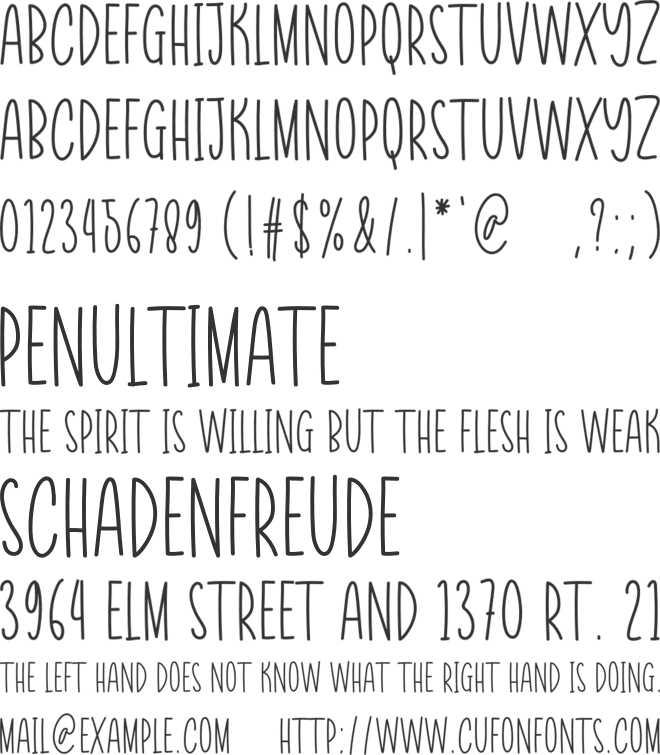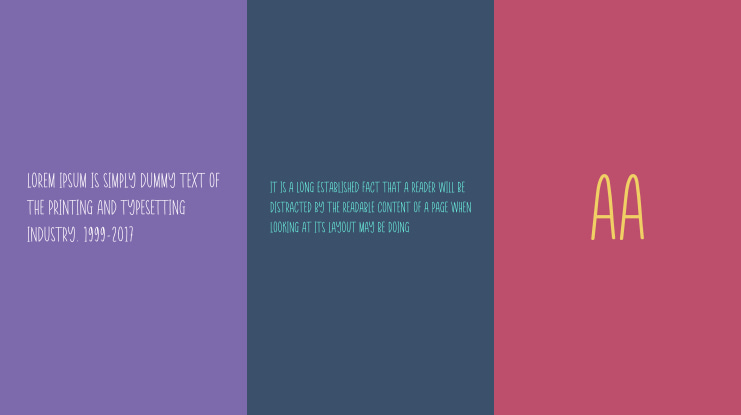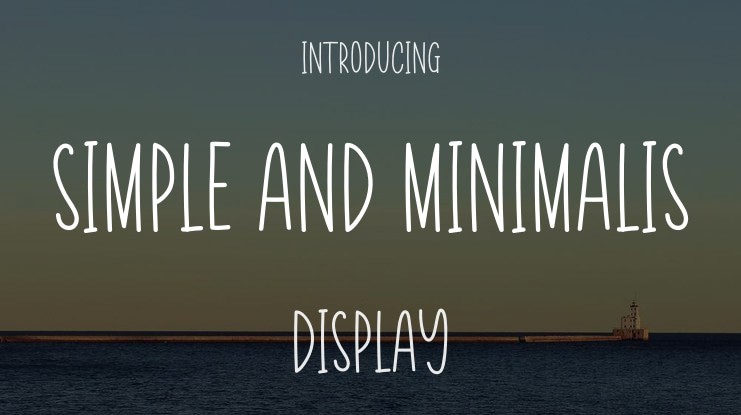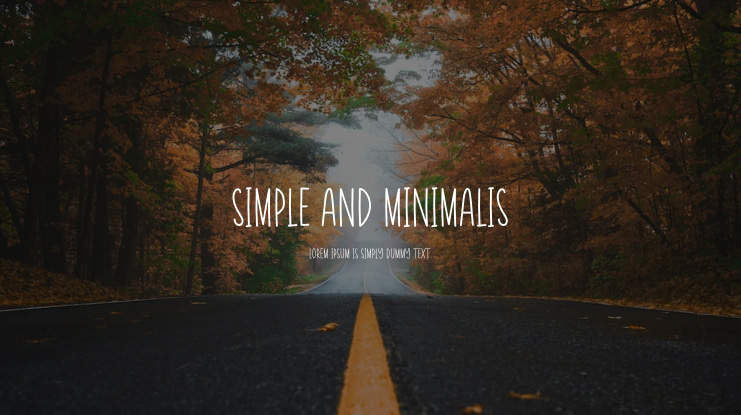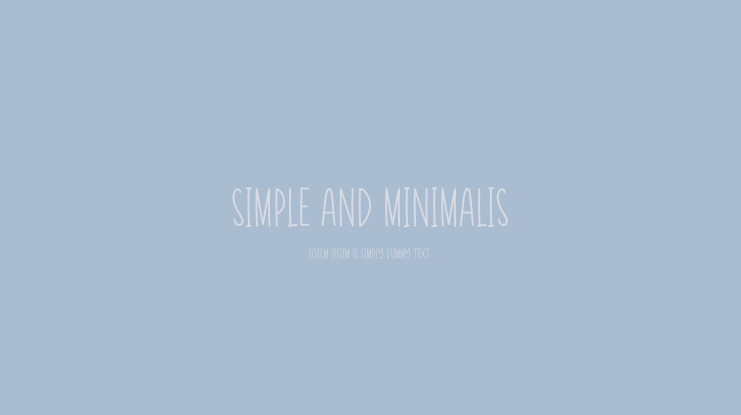
Simple And Minimalis Font
Our collection features the latest stylish fonts, perfect for various applications such as wall displays, wedding invitations, social media logos, advertisements, product packaging, labels, photography, watermarks, invitations, stationery, and any project that requires elegant handwriting.